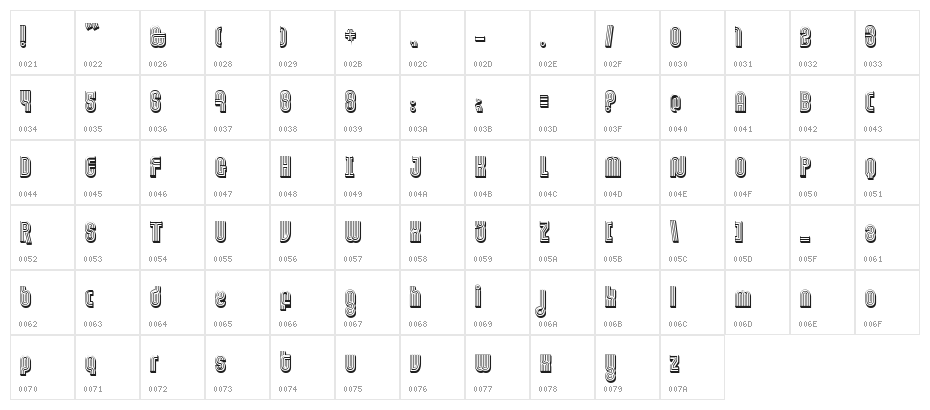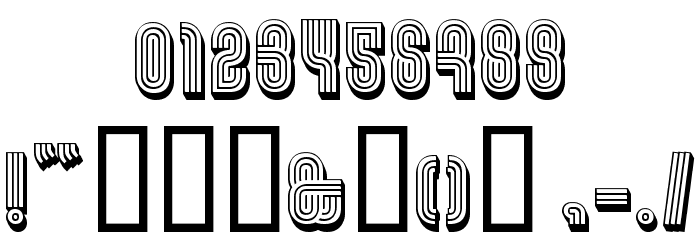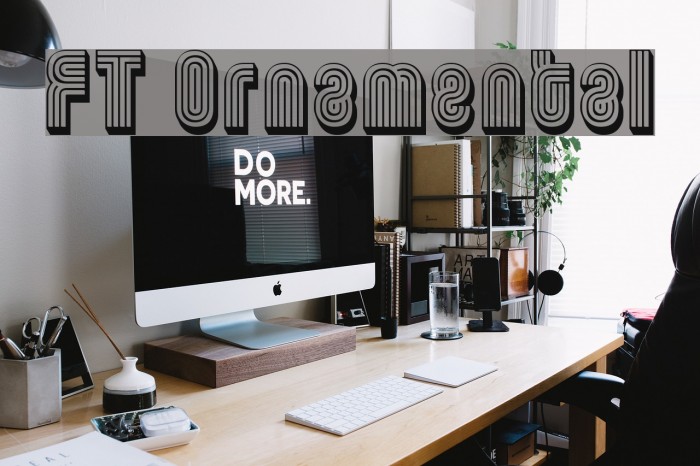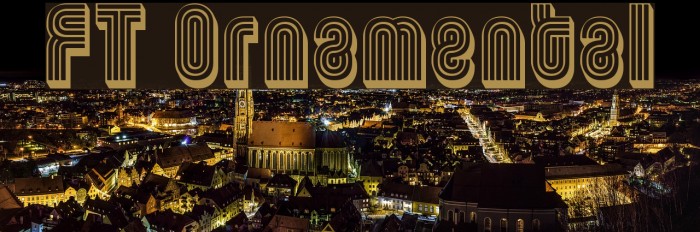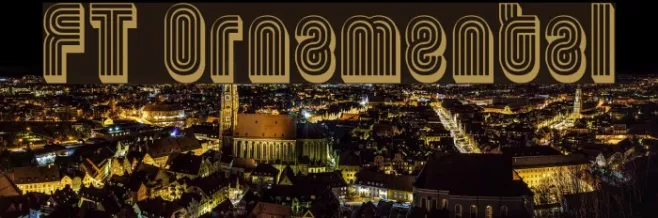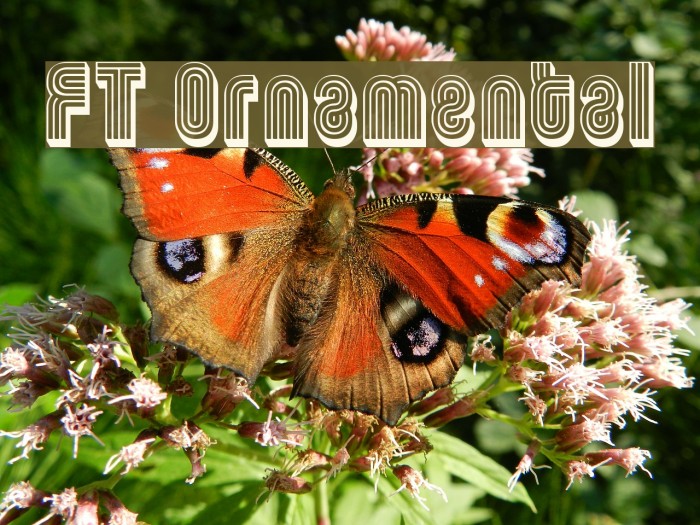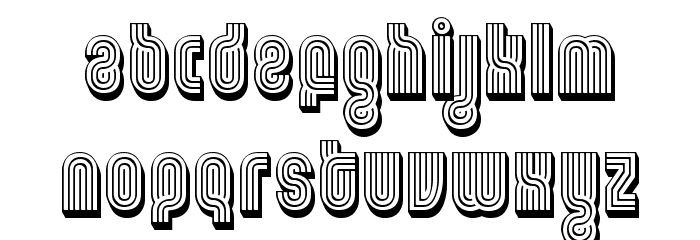
FT Ornamental Font
FT Ornamental Description
This font features an intricate, ornamental design with a layered, three-dimensional effect. Each character is composed of multiple parallel lines, creating a sense of depth and complexity. The uppercase and lowercase letters maintain a consistent style, with rounded edges and a bold presence. The numerals and special characters follow the same ornate pattern, making the font suitable for decorative purposes. The overall appearance is striking and eye-catching, ideal for projects that require a unique and artistic touch.
| Proposed Projects | Ideal for posters, logos, branding, and any design project that requires a bold, decorative typeface. |